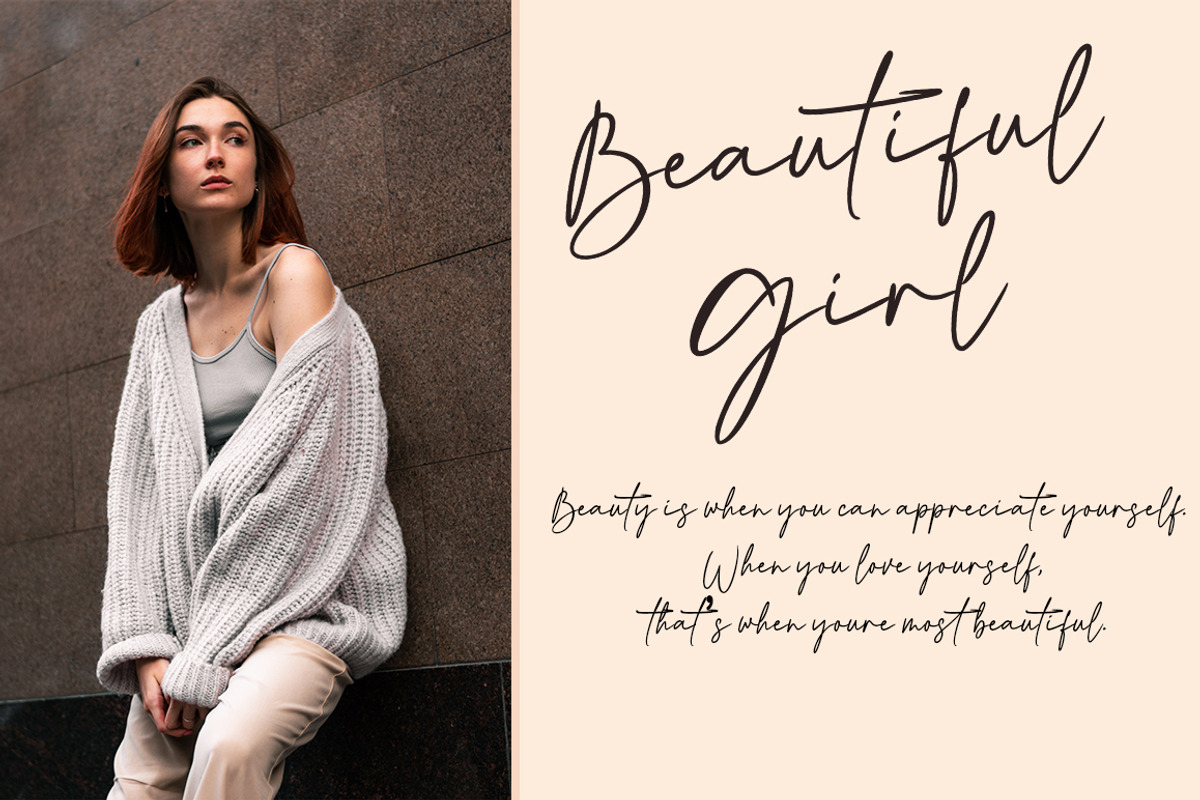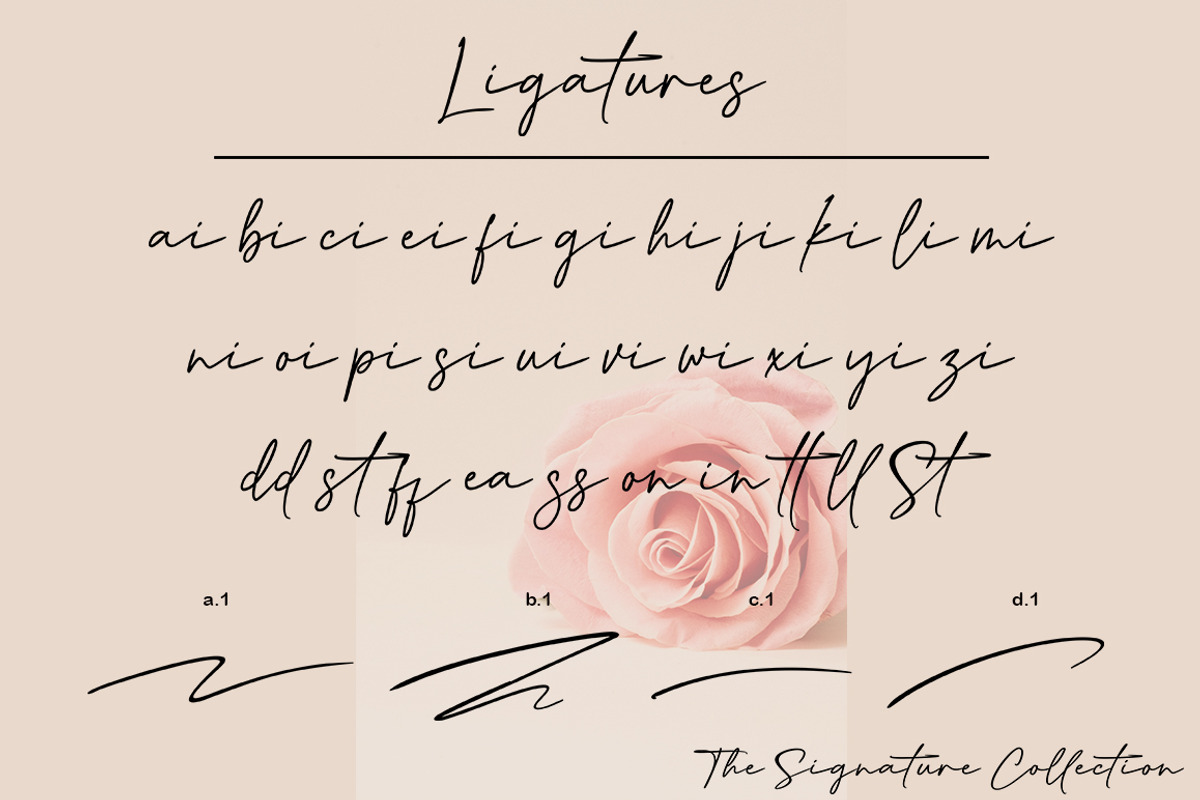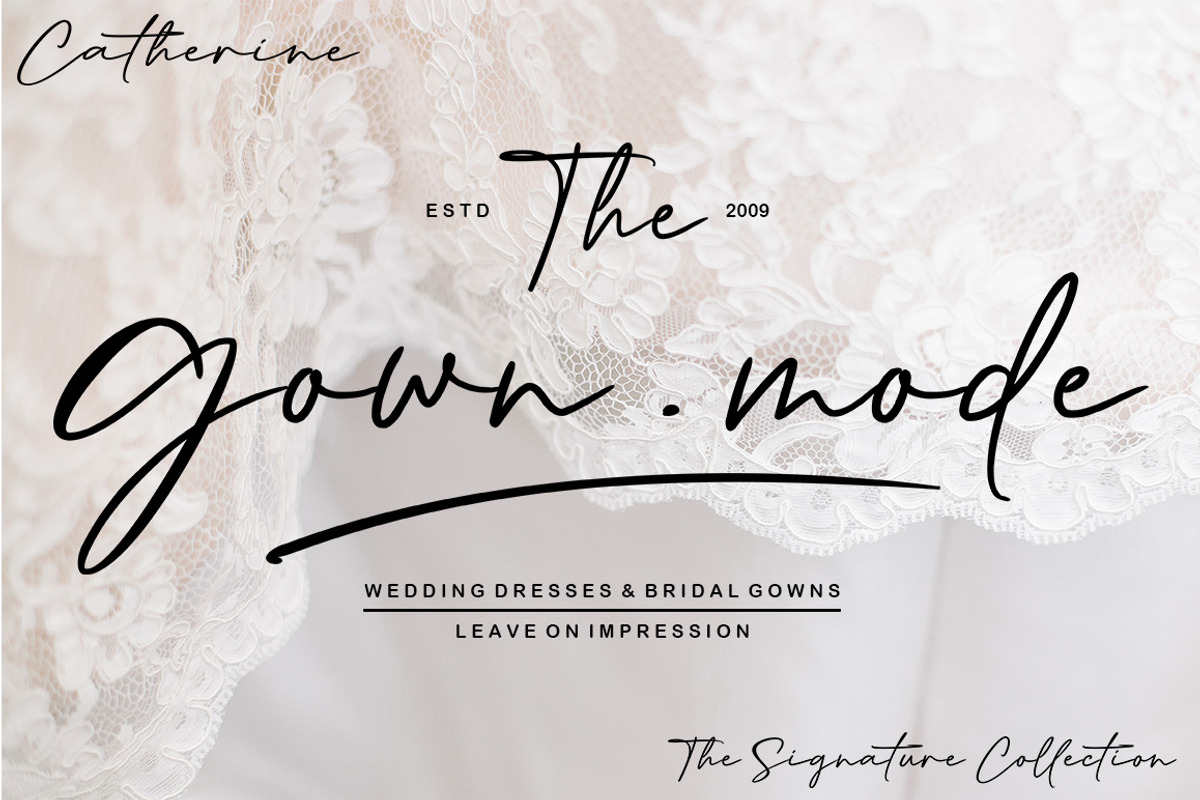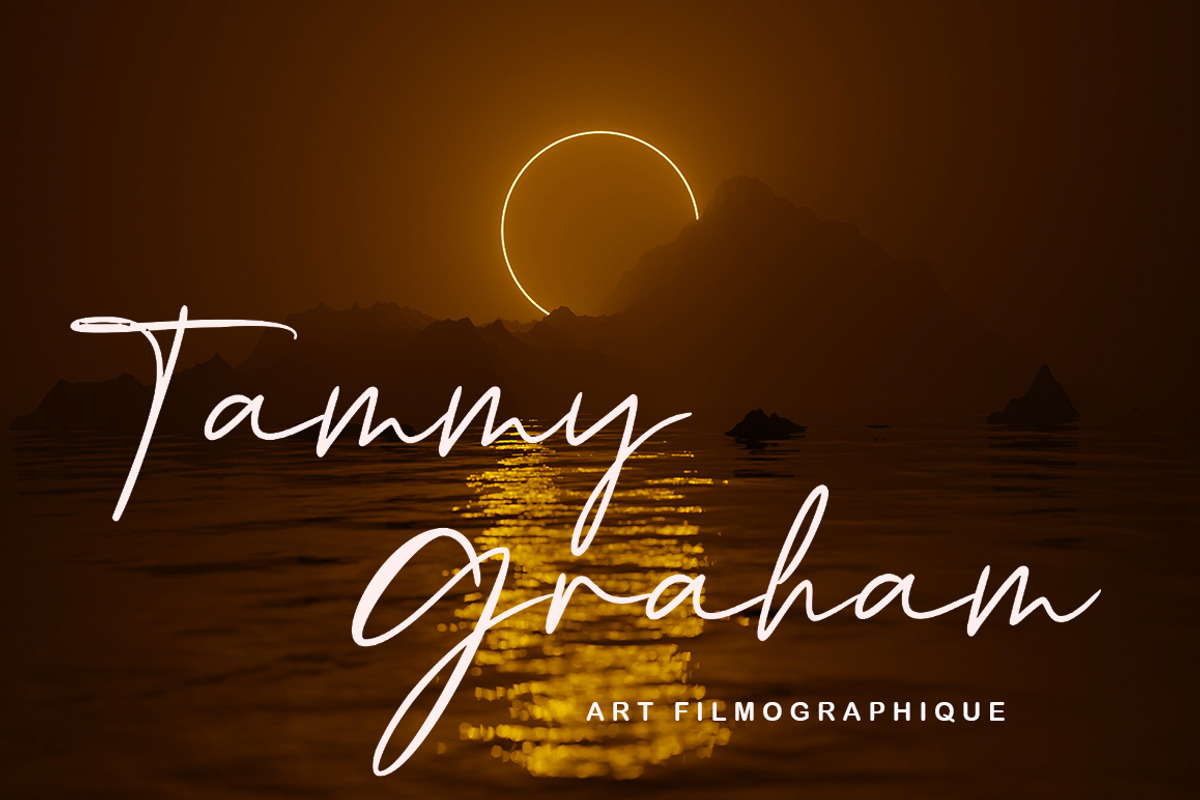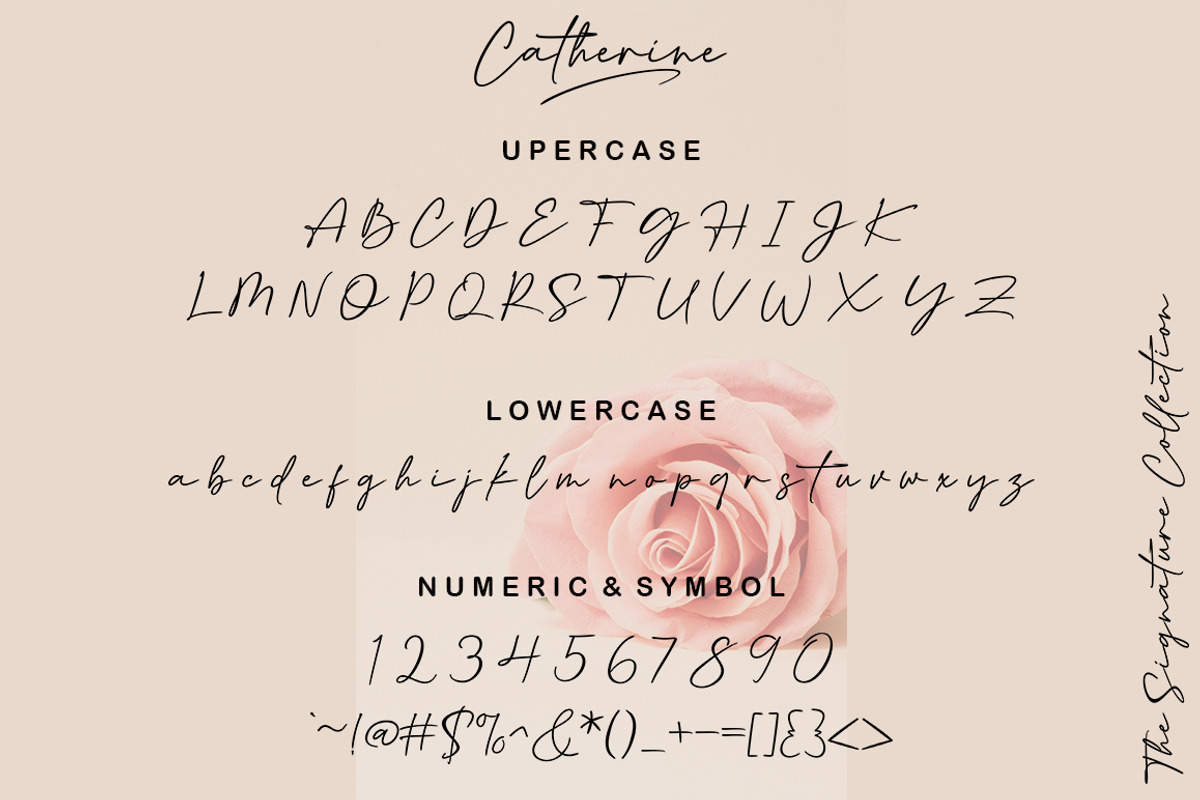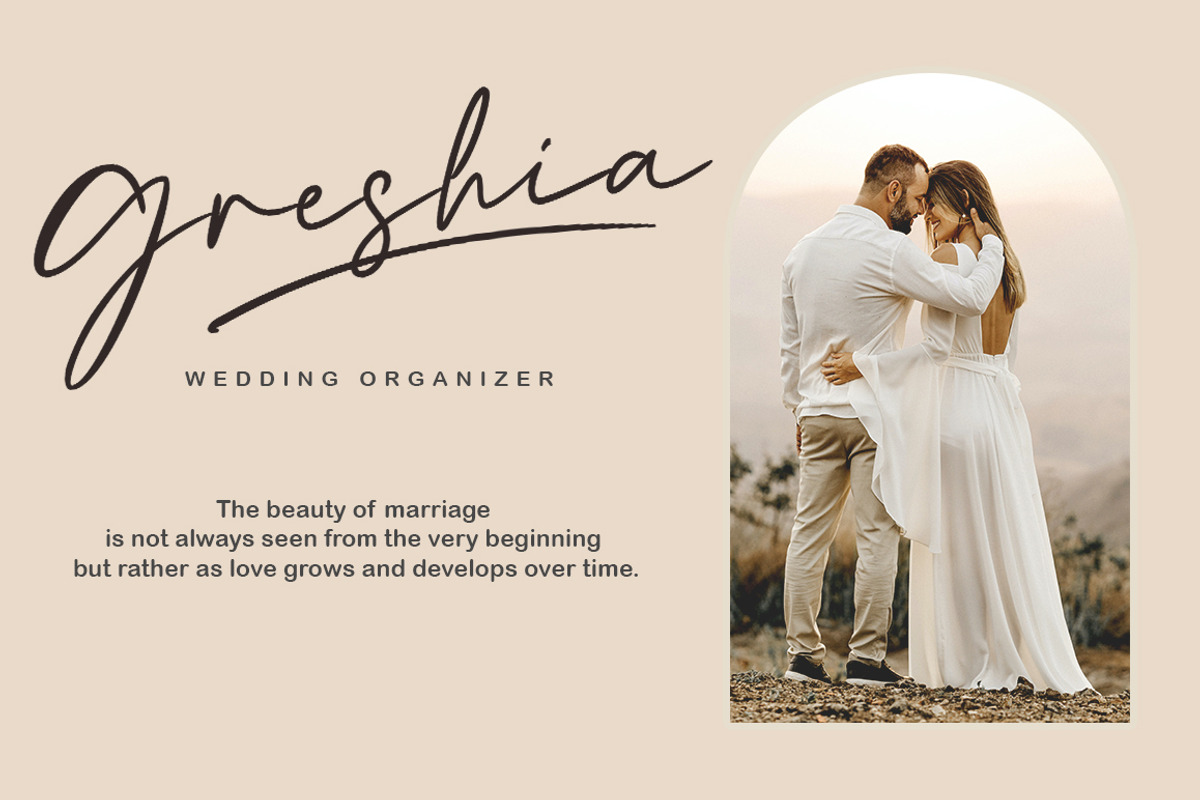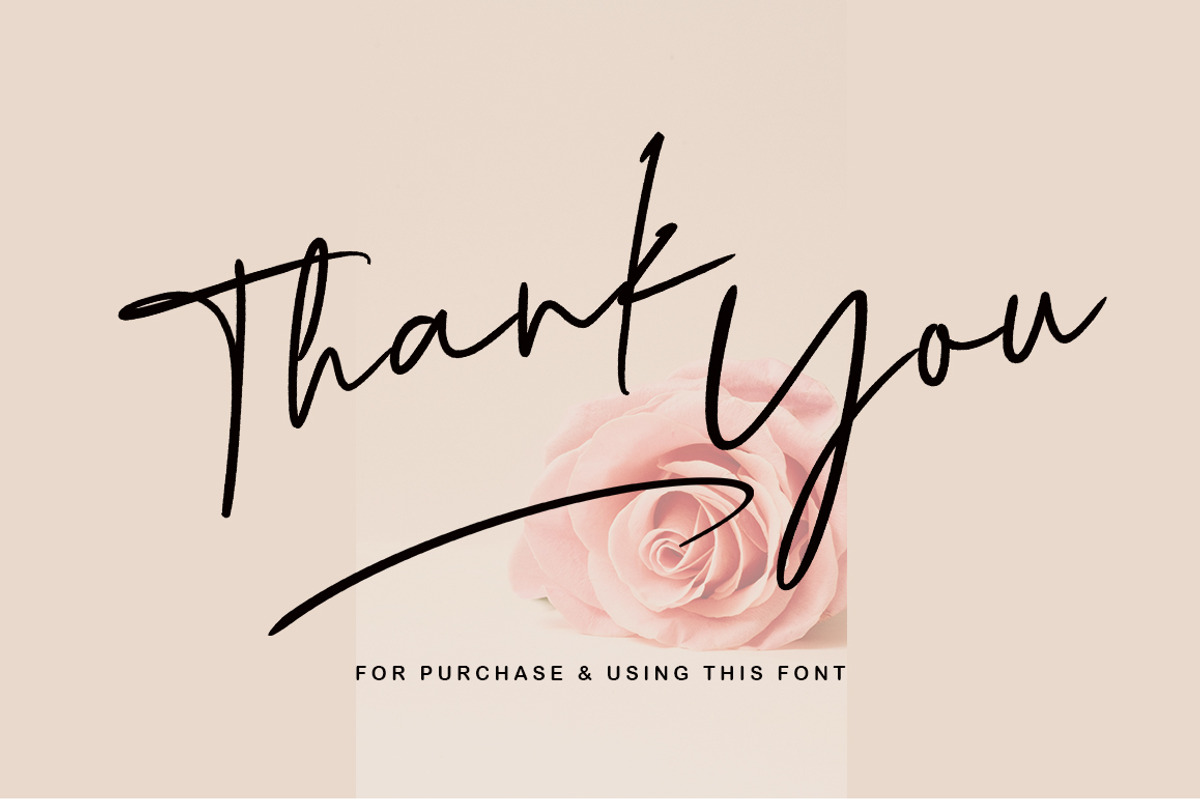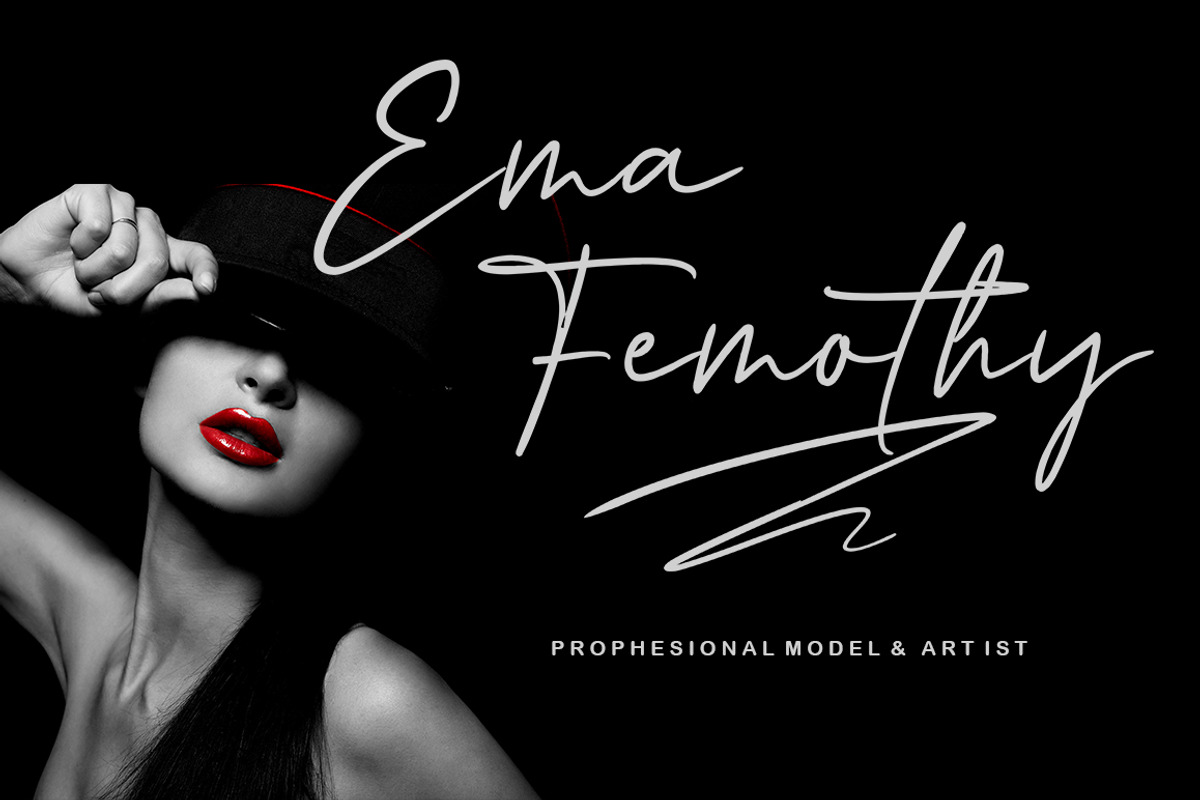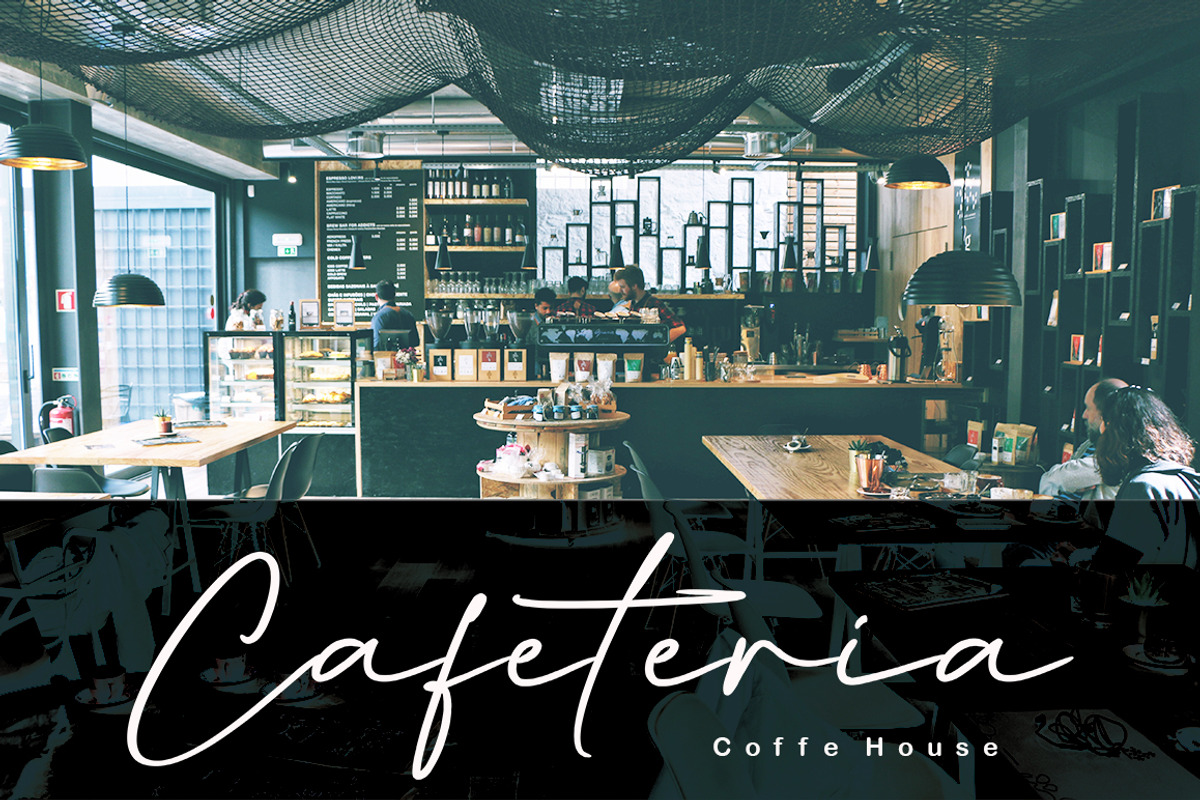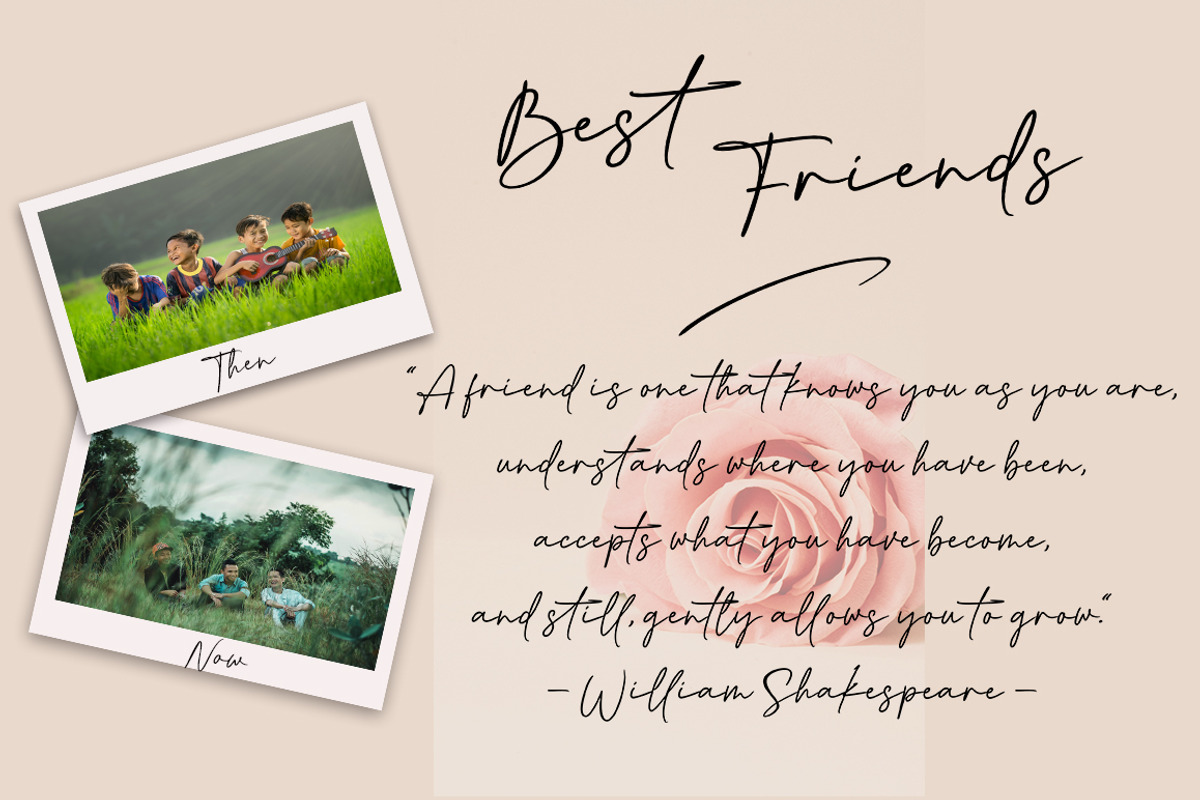
Catherine
TYPOGRAPHIC SIGNATURE COLLECTION Catherine. This font is all about fleeting vision, a touch of the moment. some letters may be illegible, but their shapes evoke emotion. sometimes in design emotion is more important. our brain can decode letter shapes.
It includes a full set of upper and lower case letters, multilingual symbols, numbers, punctuation marks, 31 ligatures and several underscore alternatives. in the future we will add some features. This font has a smooth wet ink texture.